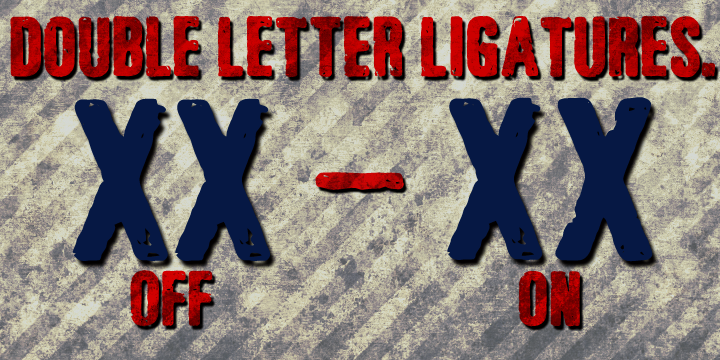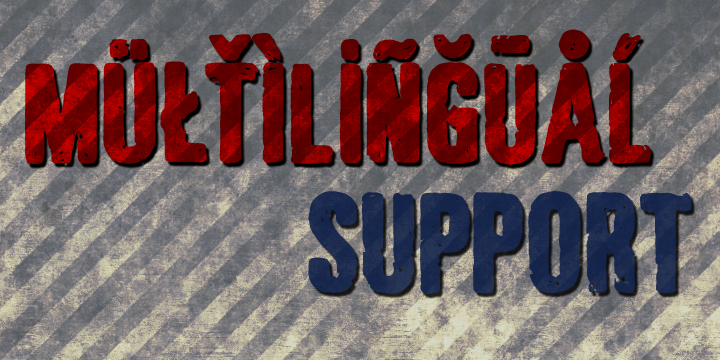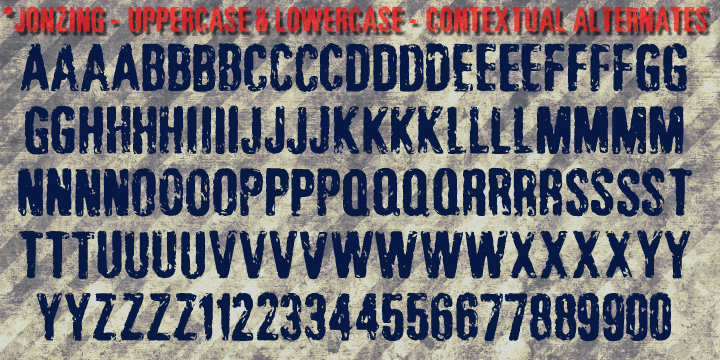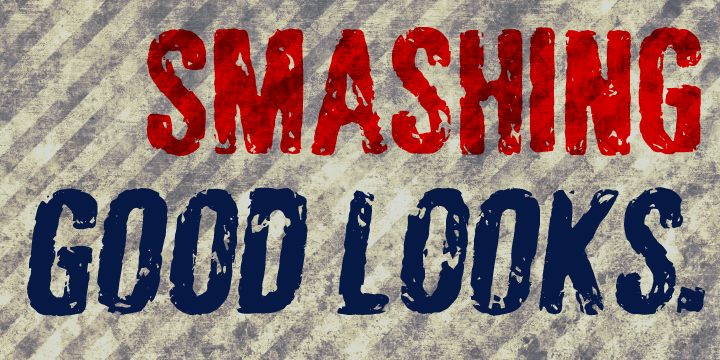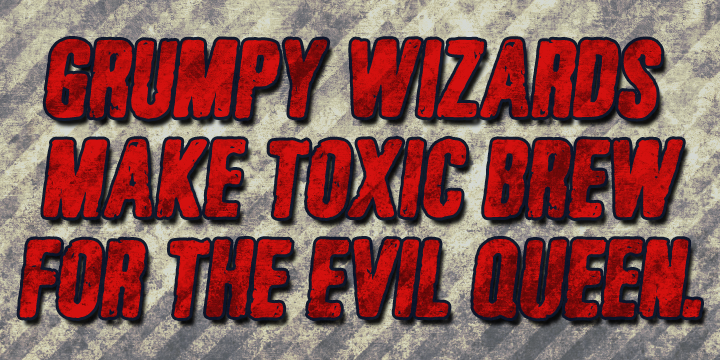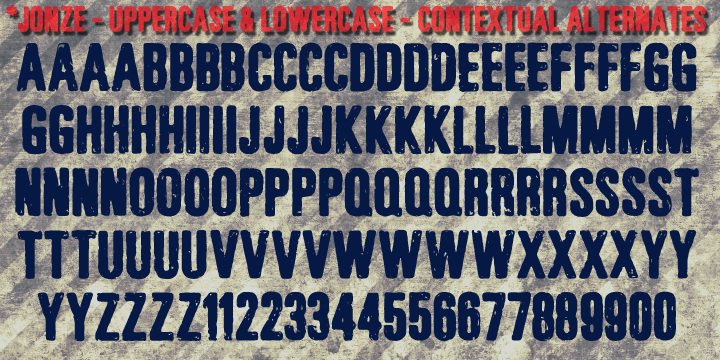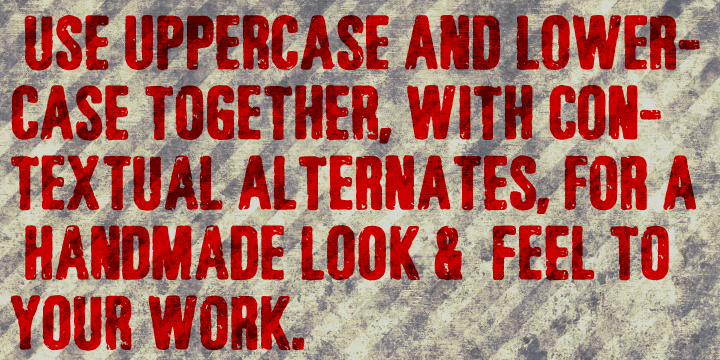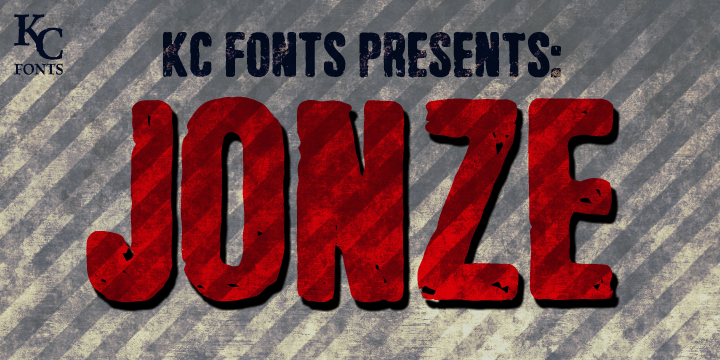
Jonze is a grunge font family. This typeface has four styles and was published by KC Fonts.
Jonze & Jonzing from KC Fonts is an all uppercase based font that resembles a rubber stamp or wood type; Jonze being more on the saturated side and Jonzing on the rather dry. Both fonts each have four glyphs for each letter & two per number, which are accessed by uppercase, lowercase & Contextual Alternates.
The Jonze family takes the grungy look that you love one step further by creating a handmade look for you by randomly cycling through Contextual Alternates & Double Letter Ligatures for a unique and authentic look to your creative.
When not using the Contextual Alternates feature, you can still alternate between uppercase and lowercase letters to change it up or by accessing the Stylistic Alternates feature. The Jonze family has an extended character set for multilingual support.